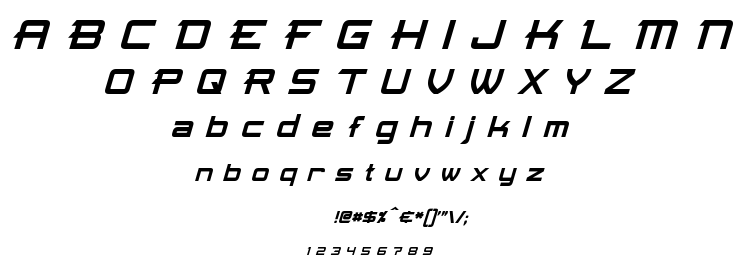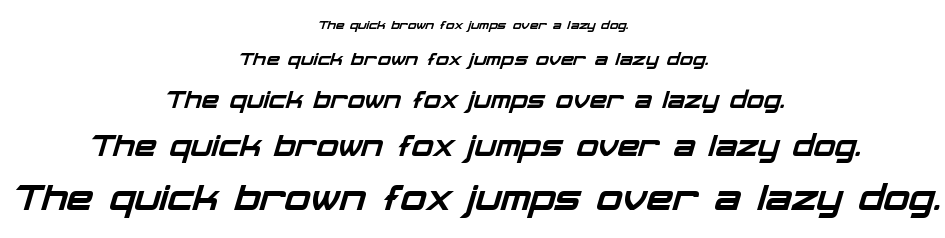
Based on the logo of the “Transformers: Beast Machines” franchise from Hasbro. Includes full alphabet, accent characters and Euro.
Added a few more extended punctuation characters, as well as an oblique version of the font.